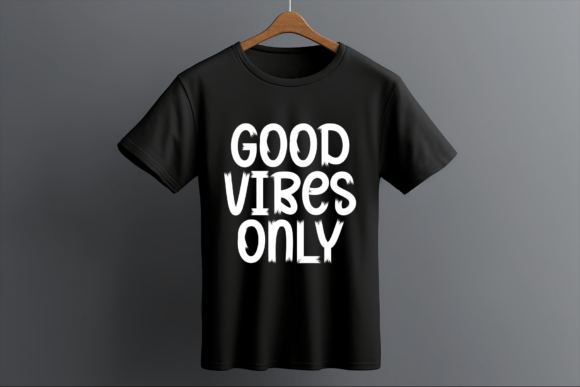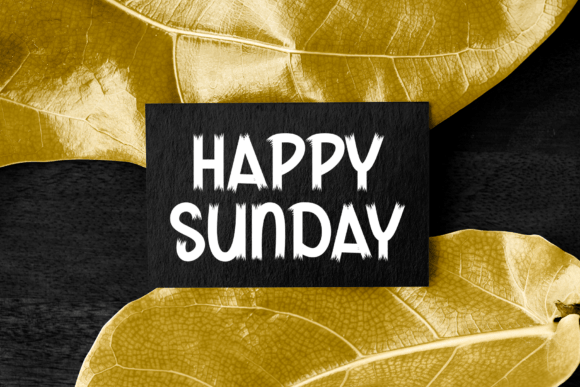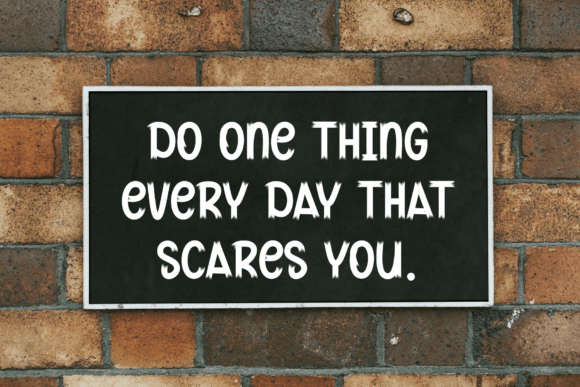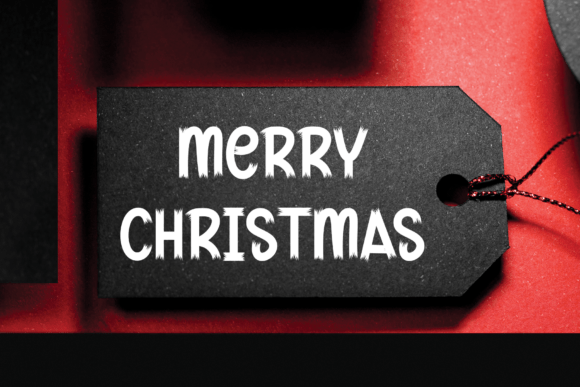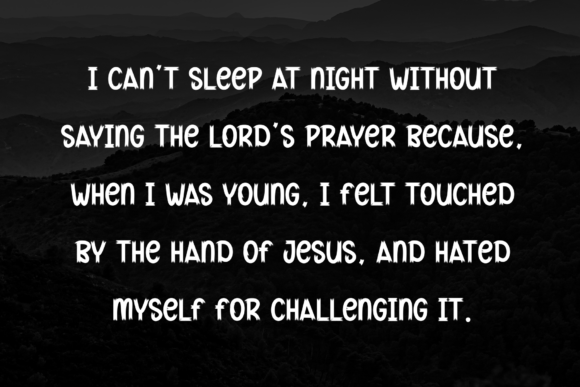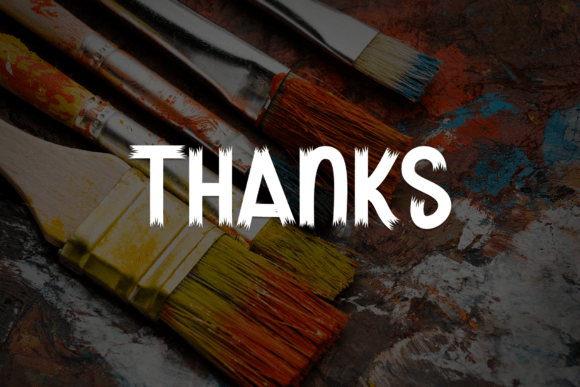
Unleash Your Inner Artist with the Brush Painting Font
Are you looking for a typeface that adds a touch of raw energy and creativity to your designs? Look no further than the Brush Painting font. This unique and bold font is perfect for designers and crafters who want to bring a hand-crafted, edgy vibe to their work. With its rugged, textured edges that mimic the look of wet bristles on canvas, the Brush Painting font is sure to make a statement.
The Characteristics of the Brush Painting Font
The Brush Painting font is a true standout in the world of typography. Its bold and high-impact design makes it perfect for creating statement pieces that demand attention. The font’s rugged, textured edges give it a unique and organic feel that’s reminiscent of handmade artwork. Whether you’re creating a poster, logo, or any other type of design, the Brush Painting font is sure to add a touch of personality and flair.
Uses for the Brush Painting Font
The Brush Painting font is incredibly versatile and can be used in a wide range of design applications. Here are just a few ideas to get you started:
- Exhibition Posters: The Brush Painting font is perfect for creating eye-catching exhibition posters that showcase your artwork or a particular theme. Its bold and rugged design ensures that your poster will stand out from the crowd.
- Streetwear Logos: If you’re a fashion designer or artist looking to create a logo for your streetwear brand, the Brush Painting font is an excellent choice. Its edgy, hand-crafted vibe is sure to appeal to fans of urban fashion.
- Artistic Branding: The Brush Painting font is also perfect for artists, galleries, and museums looking to create a bold and eye-catching brand identity. Its unique design ensures that your brand will stand out from the competition.
Tips for Using the Brush Painting Font
To get the most out of the Brush Painting font, here are a few tips to keep in mind:
- Use High-Contrast Colors: The Brush Painting font looks best when used in high-contrast black and white. This allows the rugged texture of the font to really stand out and gives your design a bold, eye-catching look.
- Add Texture: To give your design an even more authentic look, try layering the Brush Painting font with vibrant paint-splatter textures. This adds a level of depth and visual interest to your design that’s sure to capture the viewer’s attention.
- Experiment with Different Sizes: The Brush Painting font is bold and high-impact, but it can also be used in smaller sizes to create a more subtle effect. Experiment with different sizes and see what works best for your design.
The Brush Painting font is a unique and versatile typeface that’s perfect for designers and crafters looking to add a touch of raw energy and creativity to their work. With its rugged, textured edges and bold, high-impact design, this font is sure to make a statement. Whether you’re creating an exhibition poster, streetwear logo, or artistic branding, the Brush Painting font is an excellent choice. So why not unleash your inner artist and give the Brush Painting font a try today?
Key Features of the Brush Painting Font
- Rugged, Textured Edges: The Brush Painting font features rugged, textured edges that mimic the look of wet bristles on canvas.
- Bold and High-Impact: The font is bold and high-impact, making it perfect for creating statement pieces that demand attention.
- Hand-Crafted Vibe: The Brush Painting font has a unique, hand-crafted vibe that’s perfect for designers and crafters looking to add a touch of personality to their work.
- Versatile: The font is incredibly versatile and can be used in a wide range of design applications, from posters and logos to branding and more.
Overall, the Brush Painting font is a must-have for any designer or crafter looking to add a touch of creativity and raw energy to their work. Its unique design, versatility, and bold, high-impact style make it the perfect tool for creating statement designs that demand attention.